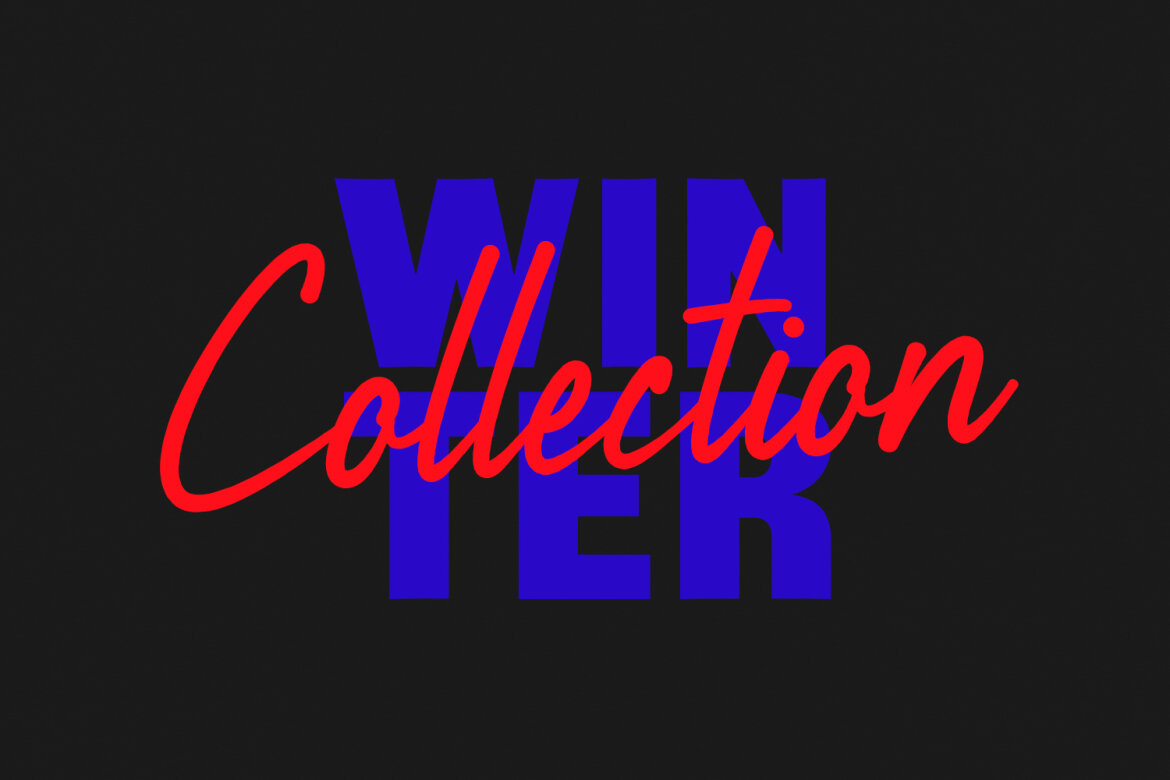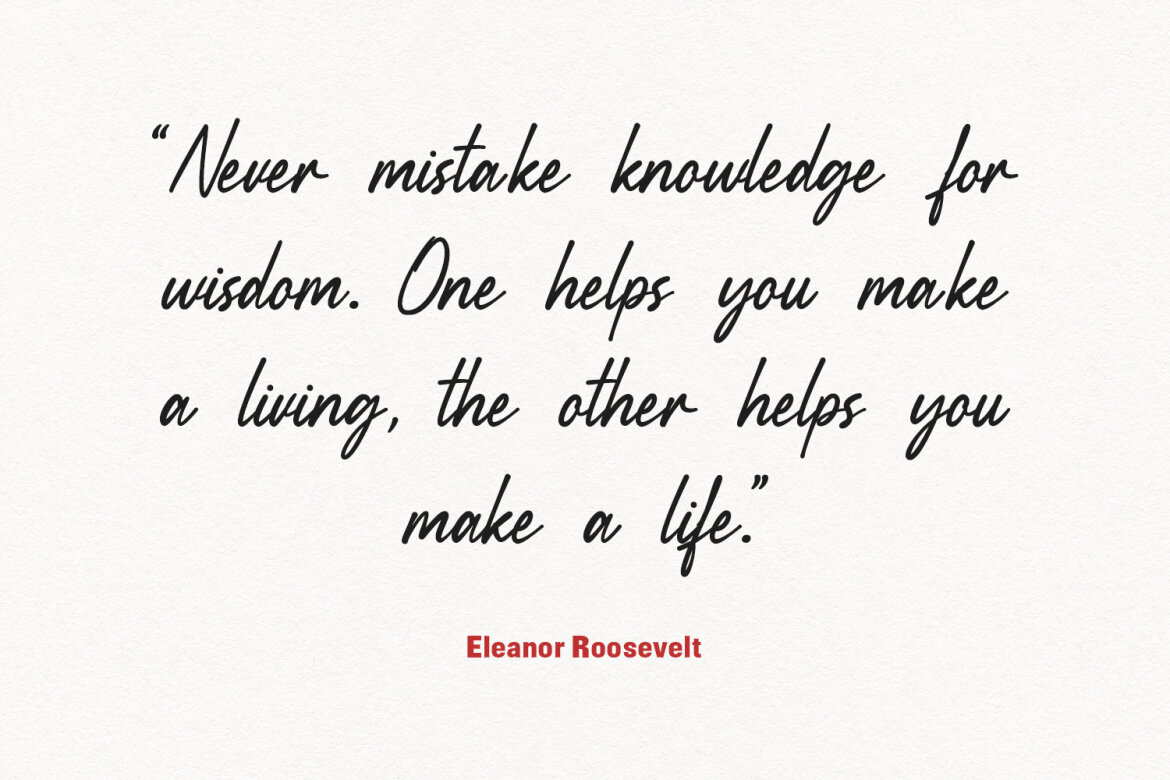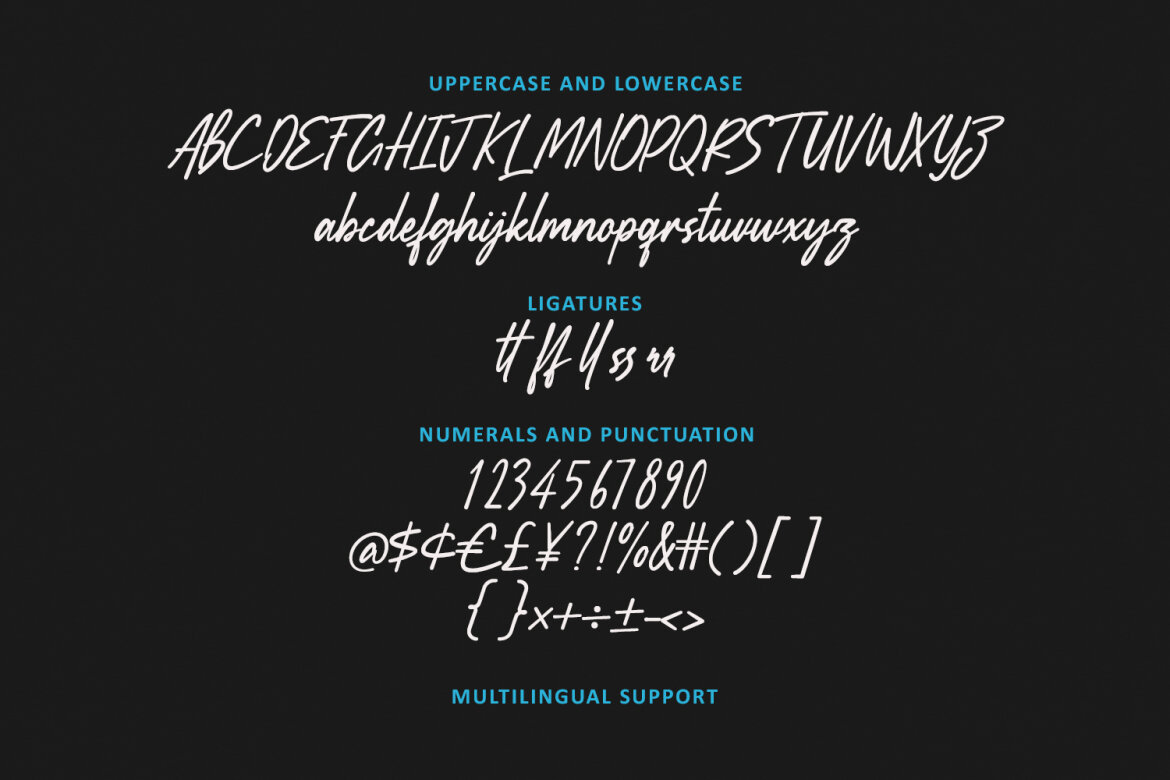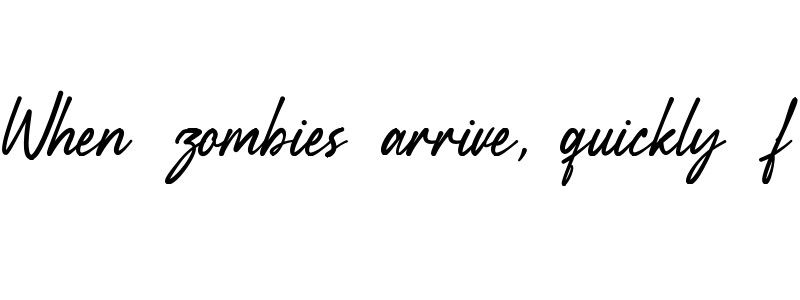
Bafferry Modern Handcrafted Signature Script Font
Bafferry
Elevate your designs with the authentic charm of Bafferry!
Bafferry is a premium handwritten script font that strikes the perfect balance between casual elegance and modern street style. Featuring natural brush-like strokes and a fluid flow, this font is designed to give your projects a personalized, high-end feel.
Whether you are working on a luxury brand identity, wedding invitations, or social media graphics, Bafferry provides an organic "hand-drawn" aesthetic that stands out. Its versatile character makes it ideal for logos, product packaging, and stylish quotes.
• Full character set (Uppercase & Lowercase)
• Numbers, Punctuation, and Symbols
• Ligatures for a natural handwriting flow
• Multilingual Support
• Branding & Logo Design
• Wedding Stationery & Invites
• Fashion & Lifestyle Photography Overlays
• Social Media Templates (Instagram/TikTok)
• Merchandise & Apparel Design